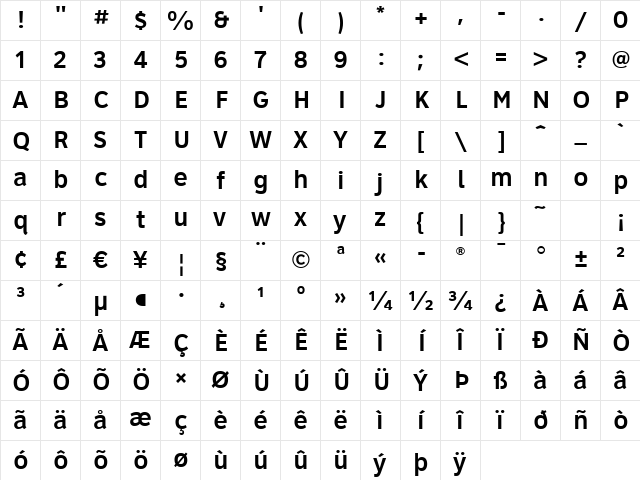
ClearviewHwy-5-W Regular
Foundry: Terminal Design, Inc.
Designer: James Montalbano, Donald Meeker, Chris O'Hara
Design Context for ClearviewHwy-5-W
ClearviewHwy-5-W is a composed and adaptable typeface that performs quietly and consistently across a wide range of design contexts.
Who designed the ClearviewHwy-5-W Regular font?